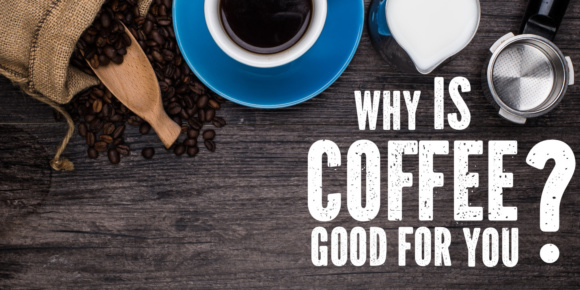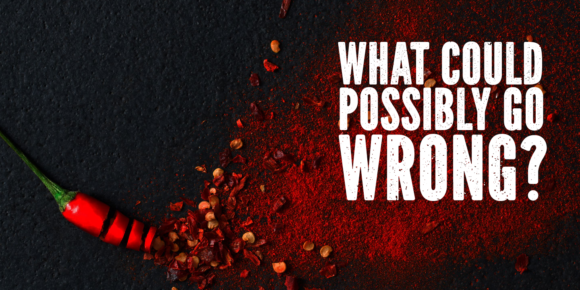
Introducing Antidotum Font: A Hand-Made Letterpress Font with a Grunge Twist
Are you tired of using the same old fonts in your design projects? Look no further than Antidotum Font, a hand-made letterpress font that adds a ton of impact and grit to any project. With its unique grunge style and two different sets of capital letters, Antidotum is the perfect choice for designers and crafters looking to add some edge to their work.
What is Antidotum Font?
Antidotum Font is a hand-made letterpress font that has been carefully crafted to give your designs a unique, distressed look. The font features two different sets of capital letters, allowing you to mix and match to create a truly one-of-a-kind look. Whether you’re working on a branding project, a craft project, or just want to add some personality to your digital designs, Antidotum Font is the perfect choice.
The Grunge Style of Antidotum Font
Antidotum Font is a grunge font at its core, with a rough, distressed look that’s perfect for adding some grit to your designs. The font features rough edges, uneven lines, and a general air of wear and tear, giving it a truly unique and eye-catching style. Whether you’re looking to create a bold statement or just want to add some texture to your designs, Antidotum Font is the perfect choice.
Two Sets of Capital Letters: Endless Possibilities
One of the standout features of Antidotum Font is its two sets of capital letters. This allows you to mix and match to create a truly unique look, with endless possibilities for customization. Whether you’re looking to create a bold, statement-making headline or a more subtle, textured look, Antidotum Font gives you the flexibility to do just that.
Antidotum Font is perfect for designers and crafters alike. Whether you’re working on a branding project, a craft project, or just want to add some personality to your digital designs, Antidotum Font is the perfect choice. The font is easy to use and can be incorporated into a wide range of design projects, from logos and brochures to t-shirts and home decor.
Tips for Using Antidotum Font
Here are a few tips for getting the most out of Antidotum Font:
- Experiment with different combinations of capital letters to create a unique look.
- Use Antidotum Font to add texture and interest to your designs.
- Pair Antidotum Font with bold colors and graphics for a statement-making look.
- Don’t be afraid to get creative and try new things – Antidotum Font is all about experimentation and self-expression.
Antidotum Font is a hand-made letterpress font with a unique grunge style that’s perfect for designers and crafters looking to add some edge to their work. With its two sets of capital letters and endless possibilities for customization, Antidotum Font is the perfect choice for anyone looking to add some personality to their designs. So why wait? Download Antidotum Font today and start creating something amazing!
Key Features of Antidotum Font:
- Hand-made letterpress font
- Two different sets of capital letters
- Grunge style with rough edges and uneven lines
- Perfect for designers and crafters